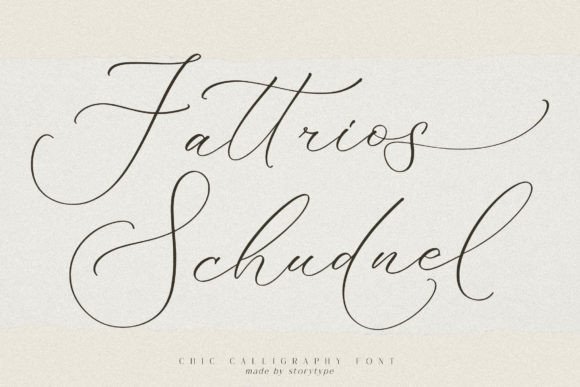
Immerse yourself in the world of Fattrios Schudnel, a calligraphy script font that exudes elegance and sophistication. Its unique style and modern flair make it the perfect choice for those seeking a touch of luxury and creativity in their designs.
With Fattrios Schudnel, your words will dance across the page, leaving a trail of beauty and grace. Its meticulously crafted curves and delicate flourishes lend an air of refinement to any project, whether it's an elegant logo, a captivating book or movie title design, or a fashion brand seeking to make a statement.
Unleash your imagination and explore the endless possibilities that await with Fattrios Schudnel. Its versatility knows no bounds, adapting seamlessly to a variety of design aesthetics. From the classic charm of a vintage magazine to the bold and edgy appeal of a modern clothing line, this font will elevate your creations to new heights.
Fattrios Schudnel is more than just a font; it's an artistic expression that adds depth and personality to your designs. Its timeless beauty will captivate your audience, leaving them spellbound by the sheer elegance of your creations.